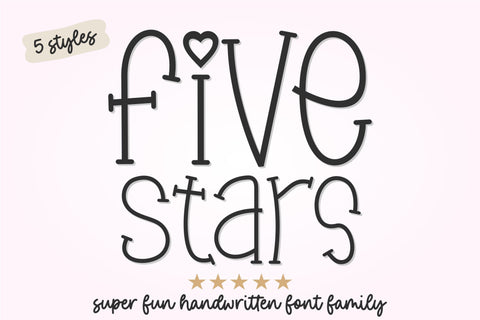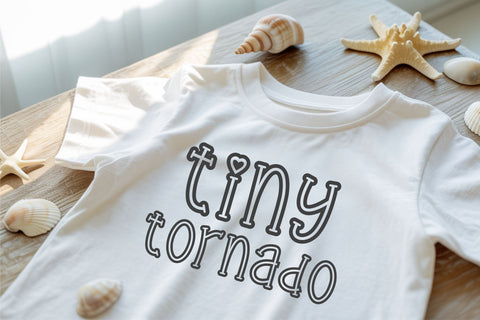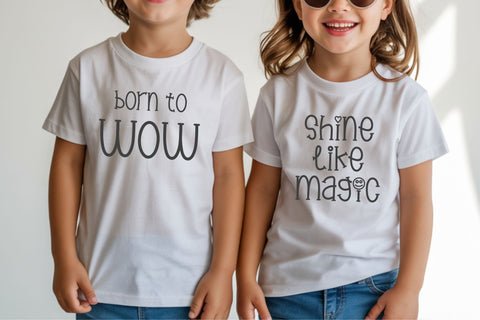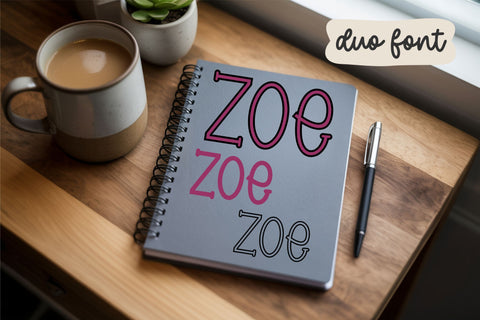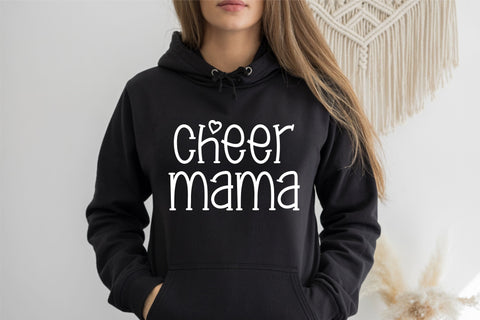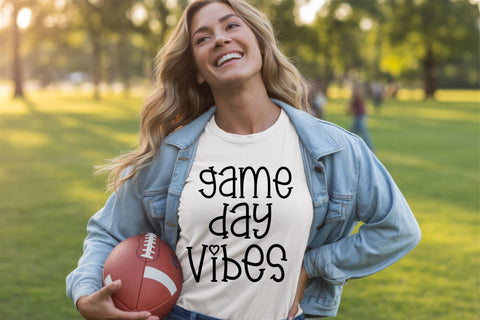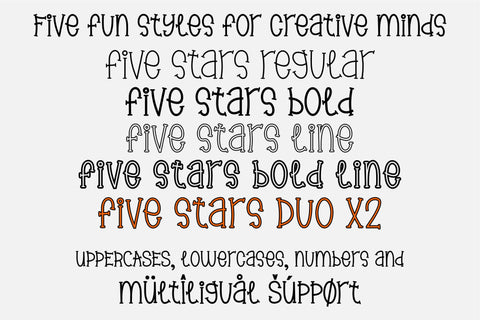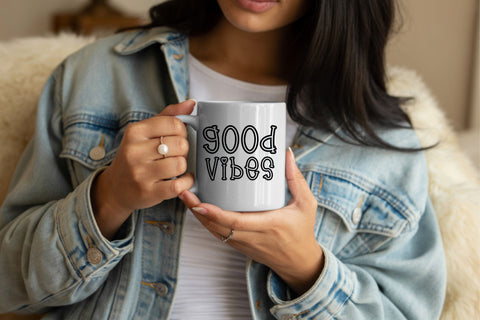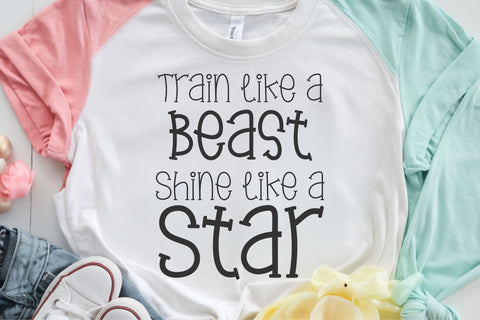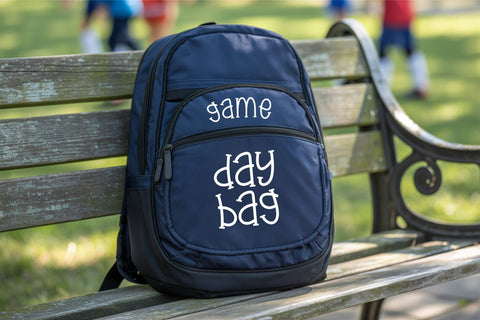
Five Stars Font Bundle – Handwritten Quirky Serif Font
Add a touch of quirky charm to your projects with Five Stars, a playful handwritten font bundle featuring 5 unique styles: Regular, Bold, Line, Bold Line, and Duo X2. Designed to stand out in every creative setting, this font is perfect for Cricut crafts, Procreate lettering, printable quotes, sporty mom gear, classroom signs, mugs, hoodies, planners, and more!
With fun curves, heart details, and expressive personality, Five Stars brings energy to every word. Whether you're crafting team t-shirts for game day, designing decals for car windows, or personalizing back-to-school backpacks and tumblers, this font fits right in. It’s also great for kids’ outfits, funny SVG quotes, teacher printables, and digital journals.
Let your creativity shine – with Five Stars, every project becomes a five-star design!